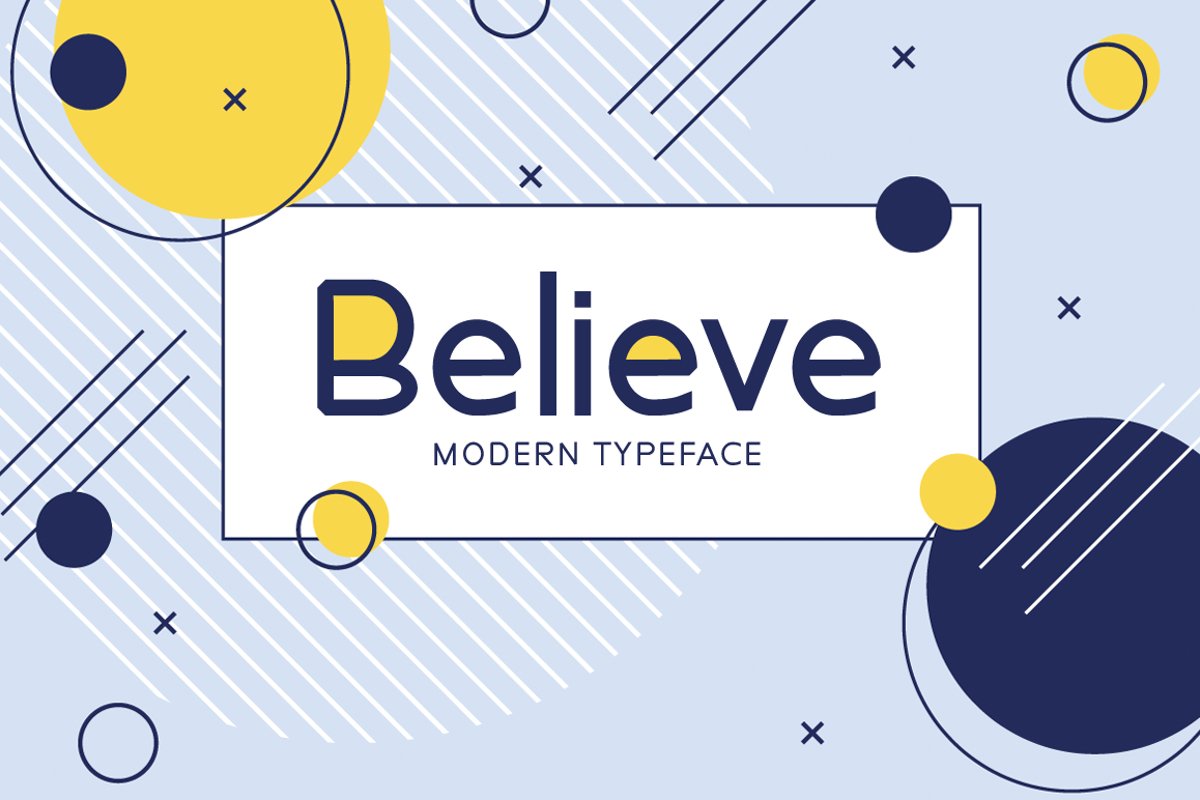
Introducing Believe!
Believe is a brand new modern font. Believe is perfectly suited for stationery, logos, t-shirt, paper, print design, website header, photo frame, flyer, music cover, poster, image slider and much more.